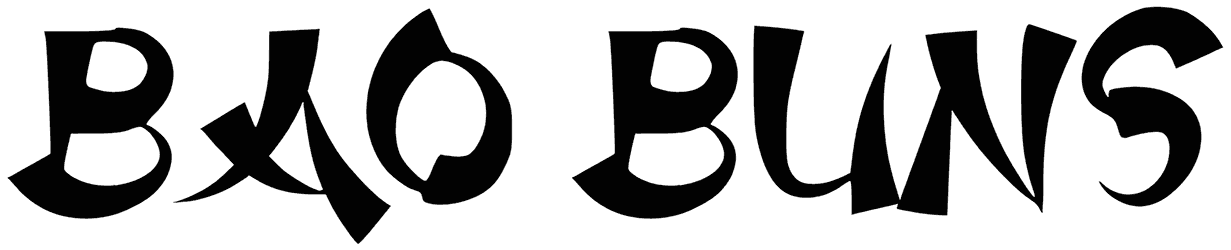
Samurai Font
If you are looking for something ethnic, unusual, and deformed, then Samurai is what you should consider for your typography. Once your text has been displayed, this free manga font will have an adventurous feel, especially with the bold and angled characters.
It includes capital letters leaving aside lowercase alphabets but there are numbers and some punctuations available that will help you reach Your desired design. It’s best for books, movies, posters, clothing, animation, and advertising banners or wherever you desire.
Designed by: Fontilizer